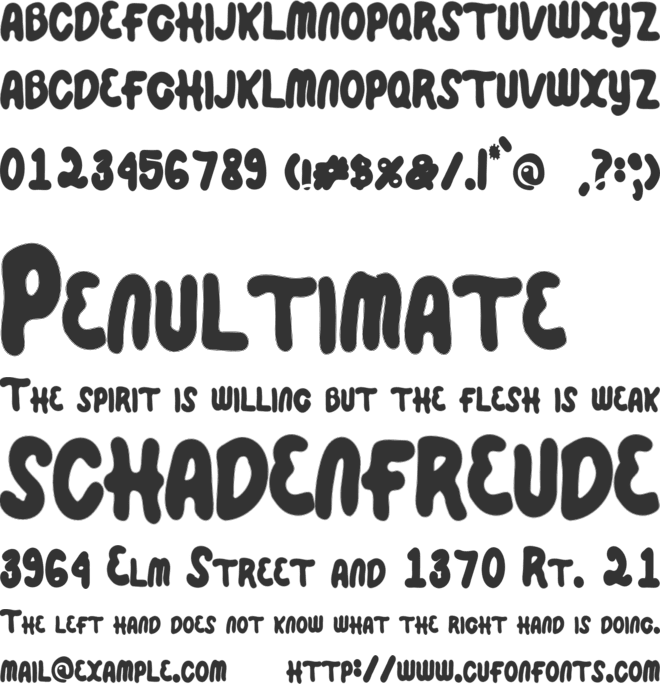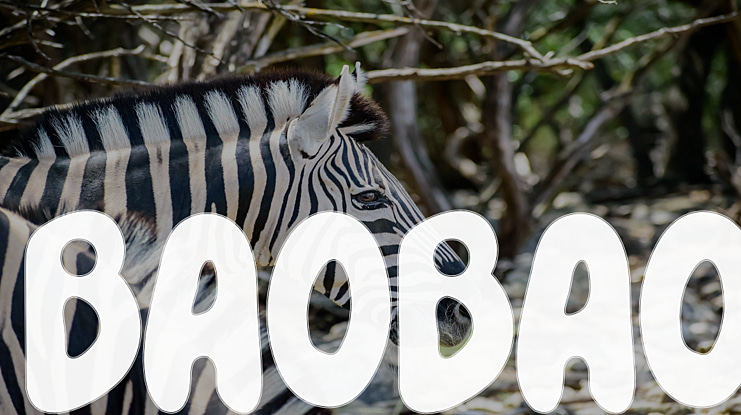
BAOBAO Font
BAOBAO cute, and stylish handwritten font, suitable for a wide spectrum of applications. From greeting cards to headlines, wedding themes, Christmas, birthdays, quotes, stickers, or just overlays on images, this font will definitely elevate any creation. https://www.creativefabrica.com/product/baobao/ref/245145/